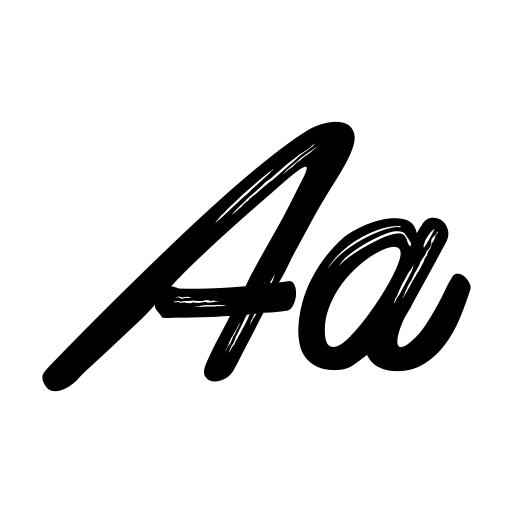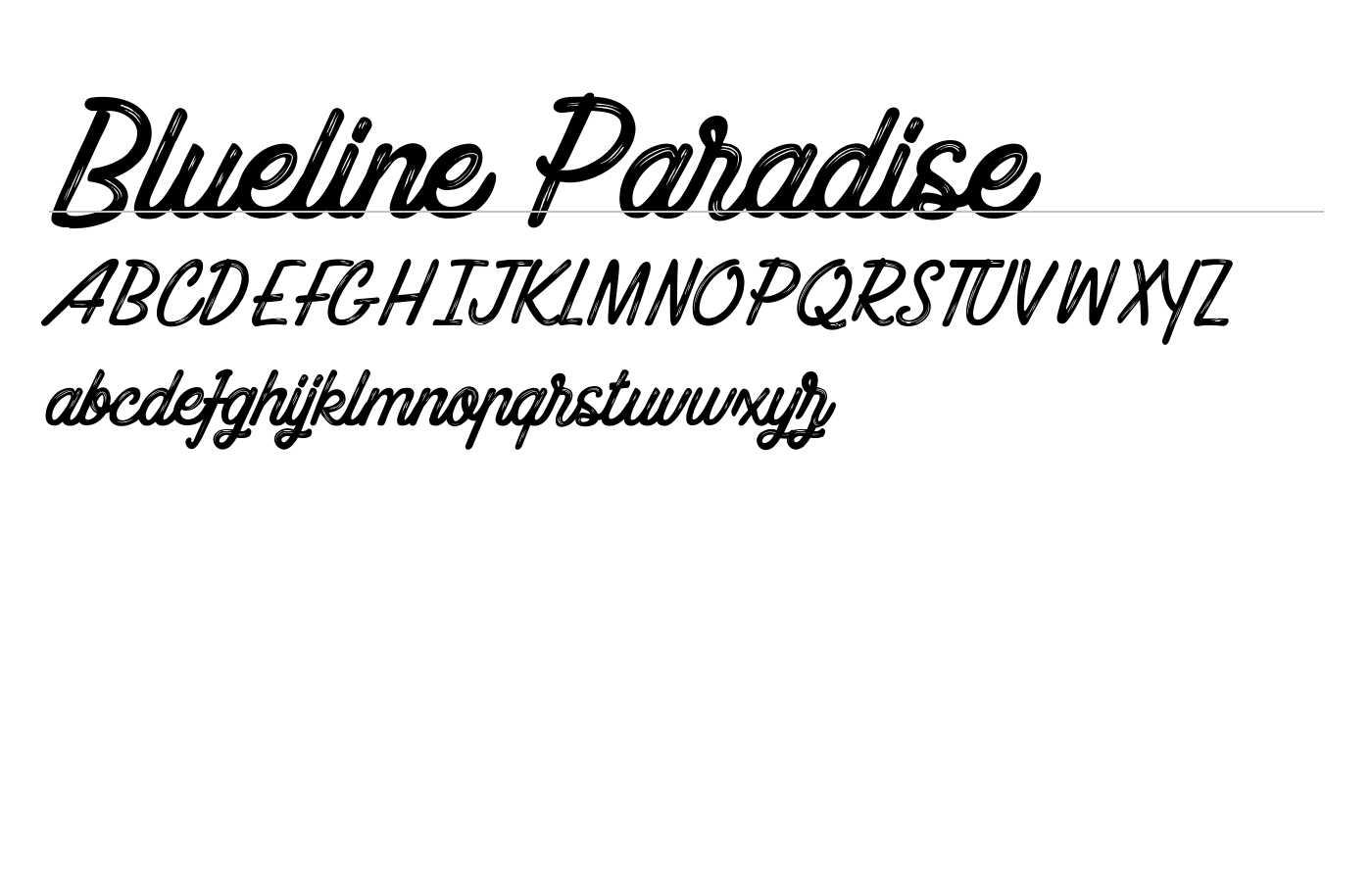
Blueline Paradise is a lively and stylish script font with a smooth, flowing design that conveys a friendly and casual elegance. Its connected lowercase letters and slightly varied stroke widths create a hand-drawn feel, making it perfect for branding, invitations, or any creative project that needs a personal, approachable touch. This font works especially well in logos and headlines where a warm, inviting look is desired.
Blueline Paradise Font
About Blueline Paradise Font